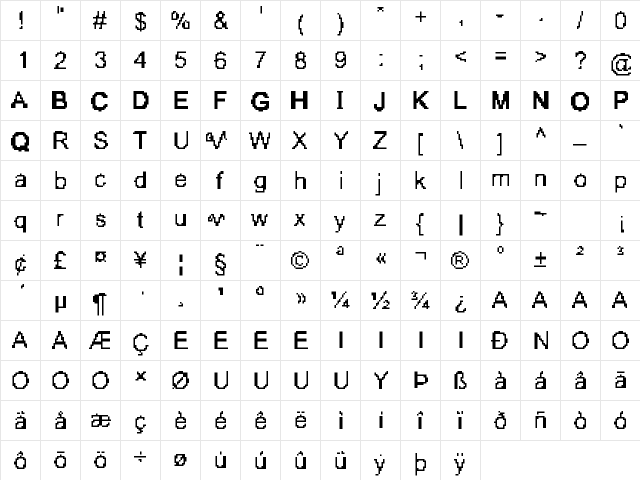
ZazGorrila Medium
Design Context for ZazGorrila Typeface
ZazGorrila is a composed and adaptable typeface that performs quietly and consistently across a wide range of design contexts.
Pro Tip: Pair ZazGorrila with a font of contrasting weight or personality to build a more expressive typographic hierarchy.